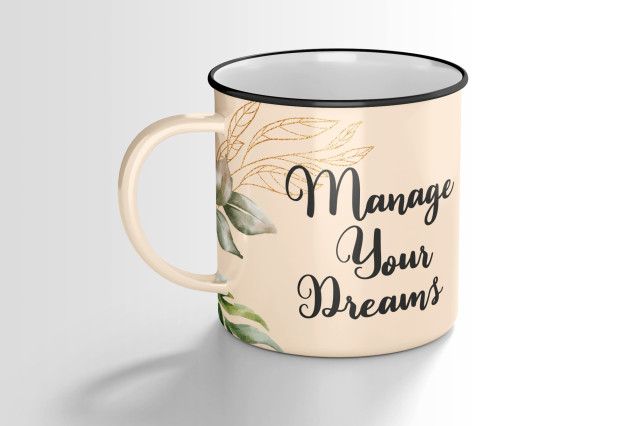
Bt Harmony Font
Bt Harmony Font is an amazing hand lettering script font that delivers natural flow, attractive style, and beautifully crafted details. Every letter is carefully designed to create authentic handwritten elegance with perfect balance. Featuring 233 glyphs, including 26 alternate characters and over 60 extended Latin characters for multilingual support, this font is ideal for wedding invitations, love-themed designs, custom mugs, Christmas cards, posters, branding, quotes, greeting cards, social media graphics, and Cricut projects.